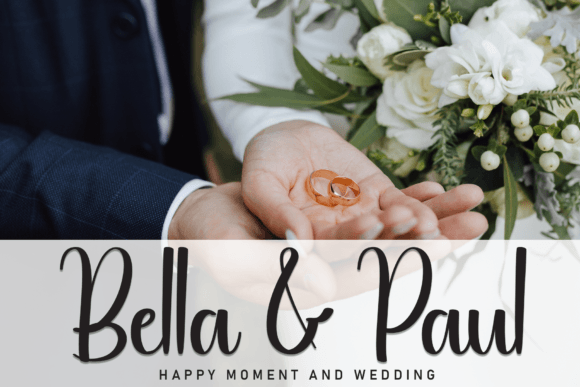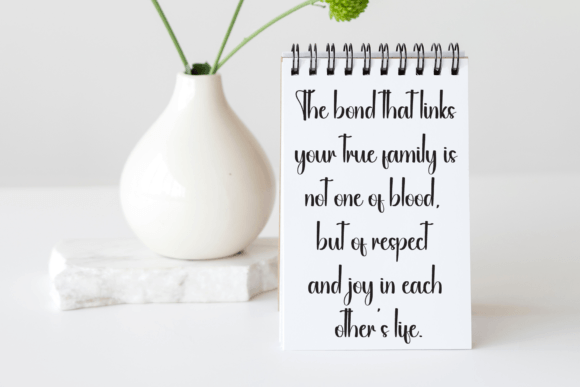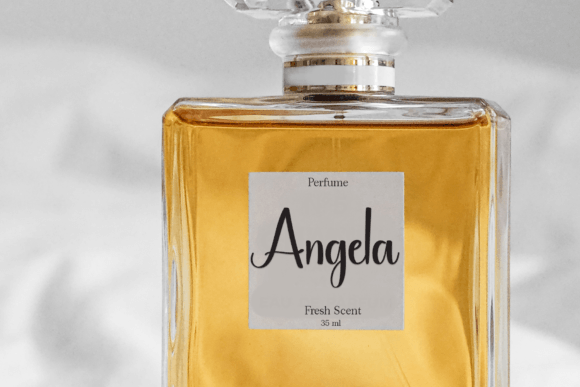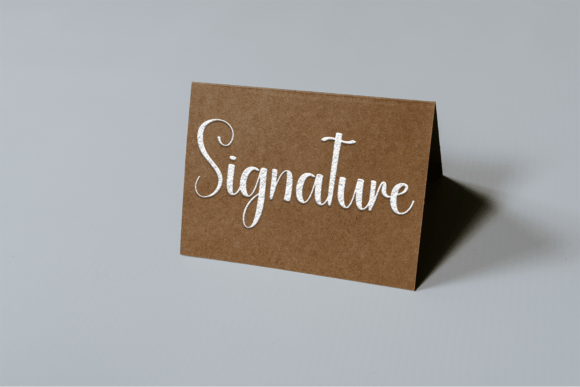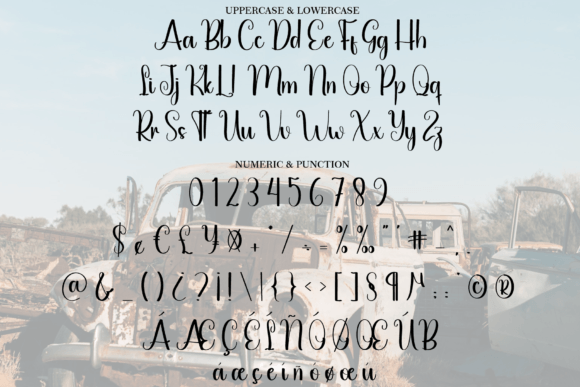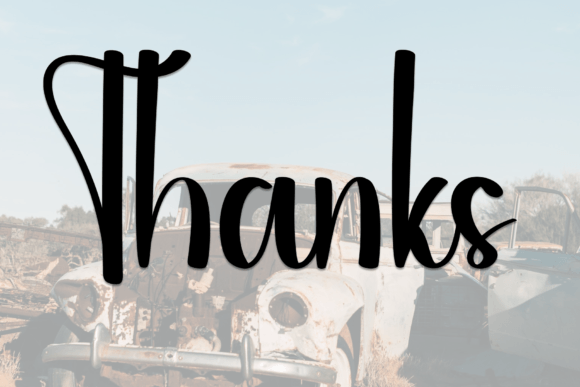
Introducing Damage Font: The Sweet and Friendly Handwritten Font for Your Creative Projects
Are you a designer or crafter looking for a font that adds a touch of whimsy and playfulness to your work? Look no further than Damage Font, a sweet and friendly handwritten font that’s perfect for a variety of creative projects. In this article, we’ll take a closer look at Damage Font, its features, and how you can use it to elevate your designs.
What is Damage Font?
Damage Font is a beautiful, handwritten font that’s designed to bring a fresh and cute touch to your designs. It’s a versatile font that’s ideal for writing wedding invitations, cards, or any other design that might need a fun and playful touch. With its sweet and friendly vibe, Damage Font is sure to capture the hearts of your audience and make your designs stand out.
Key Features of Damage Font
So, what makes Damage Font so special? Here are some of its key features:
- Handwritten style: Damage Font has a beautiful, handwritten style that’s perfect for adding a personal touch to your designs.
- Fresh and cute: This font has a fresh and cute vibe that’s sure to appeal to a wide range of audiences.
- Versatile: Damage Font is a versatile font that can be used for a variety of design projects, from wedding invitations to social media graphics.
- Easy to read: Despite its playful style, Damage Font is easy to read, making it perfect for designs that require a clear and concise message.
How to Use Damage Font in Your Designs
Now that we’ve covered the features of Damage Font, let’s talk about how you can use it in your designs. Here are some ideas to get you started:
- Wedding invitations: Damage Font is perfect for wedding invitations, as it adds a touch of romance and whimsy to your designs.
- Cards and stationery: This font is also great for cards and stationery, as it adds a personal touch to your messages.
- Social media graphics: Damage Font can be used to create fun and engaging social media graphics, from Facebook posts to Instagram stories.
- Branding and packaging: If you’re looking for a font that can help you establish a playful and friendly brand identity, Damage Font is a great choice.
Tips for Getting the Most Out of Damage Font
To get the most out of Damage Font, here are some tips to keep in mind:
- Use it with contrasting fonts: To create visual interest, try pairing Damage Font with contrasting fonts, such as a bold sans-serif font.
- Experiment with colors: Damage Font looks great in a variety of colors, so don’t be afraid to experiment and find the perfect hue for your design.
- Keep it simple: While Damage Font is a playful font, it’s still important to keep your design simple and easy to read.
In conclusion, Damage Font is a sweet and friendly handwritten font that’s perfect for designers and crafters looking to add a touch of whimsy and playfulness to their work. With its fresh and cute vibe, versatile design, and easy-to-read style, Damage Font is sure to become a favorite in your font collection. So why not give it a try and see how it can elevate your designs?
Whether you’re creating wedding invitations, social media graphics, or branding materials, Damage Font is a great choice. So go ahead, get creative, and have fun with Damage Font!